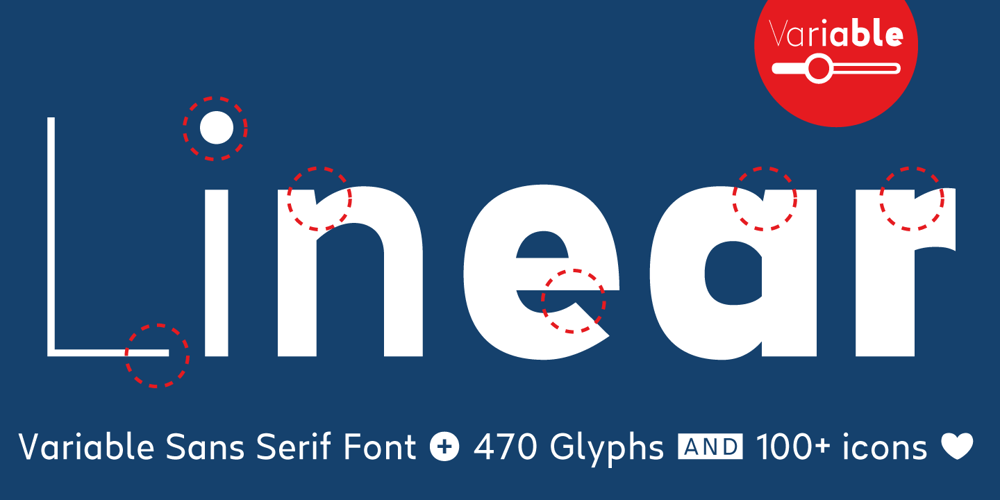
Linear Beta
Linear Beta font
Linear Beta Font Family was designed by Manuel Viergutz and published by TypoGraphicDesign. Linear Beta contains 9 styles and family package options. The variable Sans Serif typeface Linear Beta is designed from 2022–2024 for the font foundry Typo Graphic Design by Manuel Viergutz based on a font by Jens Kreitmeyer for an alphabetization app.9 font-styles (Black, UltraBold, Bold, SemiBold, Medium, Regular, Light, ExtraLight, Thin ) with 500+ glyphs (Adobe Latin 2) incl. 100+ decorative extras like icons, arrows, catch words, dingbats, emojis, symbols, geometric shapes (type the word #LOVE for ❤ or #SMILE for ☺ as OpenType-Feature dlig) and stylistic alternates (4 stylistic sets).For use in logos, magazines, posters, advertisement plus as webfont for decorative headlines. The font works best for display size.Have fun with this font & use the DEMO-FONT (with reduced glyph-set) FOR FREE!on > TypoGraphicDesign.deFont Spe­ci­fi­ca­ti­ons■ Font Name: Linear Beta■ Font Styles: 9 font-styles (Black, UltraBold, Bold, SemiBold, Medium, Regular, Light, ExtraLight, Thin) + DEMO (with reduced glyph-set)■ Font Cate­gory: Variable Sans Serif for head­line size■ Font For­mat: Open Type Format (Mac + Win, for Print) Web Open Font Format (for Web)■ Glyph Set: 500+ glyphs (incl. decorative extras) Adobe Latin 2■ Lan­guage Sup­port (72 languages): Afrikaans Albanian Asu Basque Bemba Bena Breton Catalan Chiga Colognian Cornish Danish Dutch English Estonian Faroese Filipino Finnish French Friulian Galician German Gusii Hungarian Icelandic Indonesian Irish Italian Kabuverdianu Kalenjin Kinyarwanda Lower Sorbian Luo Luxembourgish Luyia Machame Makhuwa-Meetto Makonde Malagasy Manx Morisyen North Ndebele Norwegian Bokmål Norwegian Nynorsk Nyankole Oromo Portuguese Quechua Romansh Rombo Rundi Rwa Samburu Sango Sangu Scottish Gaelic Sena Shambala Shona Soga Somali Spanish Swahili Swedish Swiss German Taita Teso Upper Sorbian Uzbek (Latin) Volapük Vunjo Zulu■ OpenType features (24): aalt case ccmp dlig dnom frac fwid hwid liga lnum numr onum ordn sinf ss01 ss02 ss03 ss04 subs sups zero kern mark mkmk■ Design Date: 2022–2024■ Type Desi­gner: Manuel Viergutz & Jens Kreitmeyer